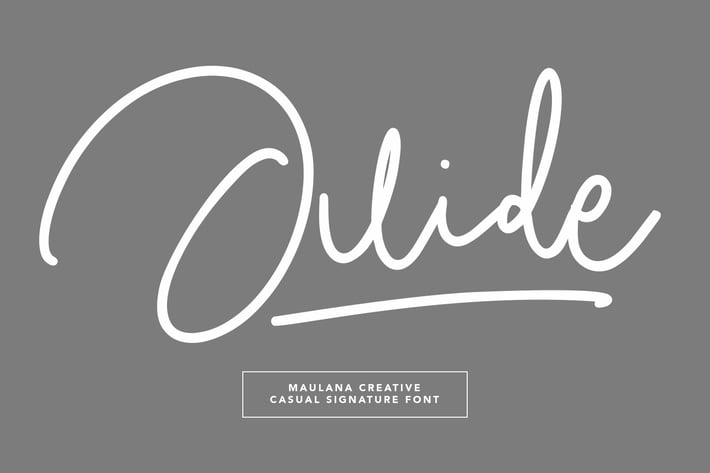
Juide Casual Signature Font
Give your designs an authentic handcrafted feel. "Juide" is perfectly suited to signature, stationery, logo, typography quotes, magazine or book cover, website header, clothing, branding, packaging design and more.